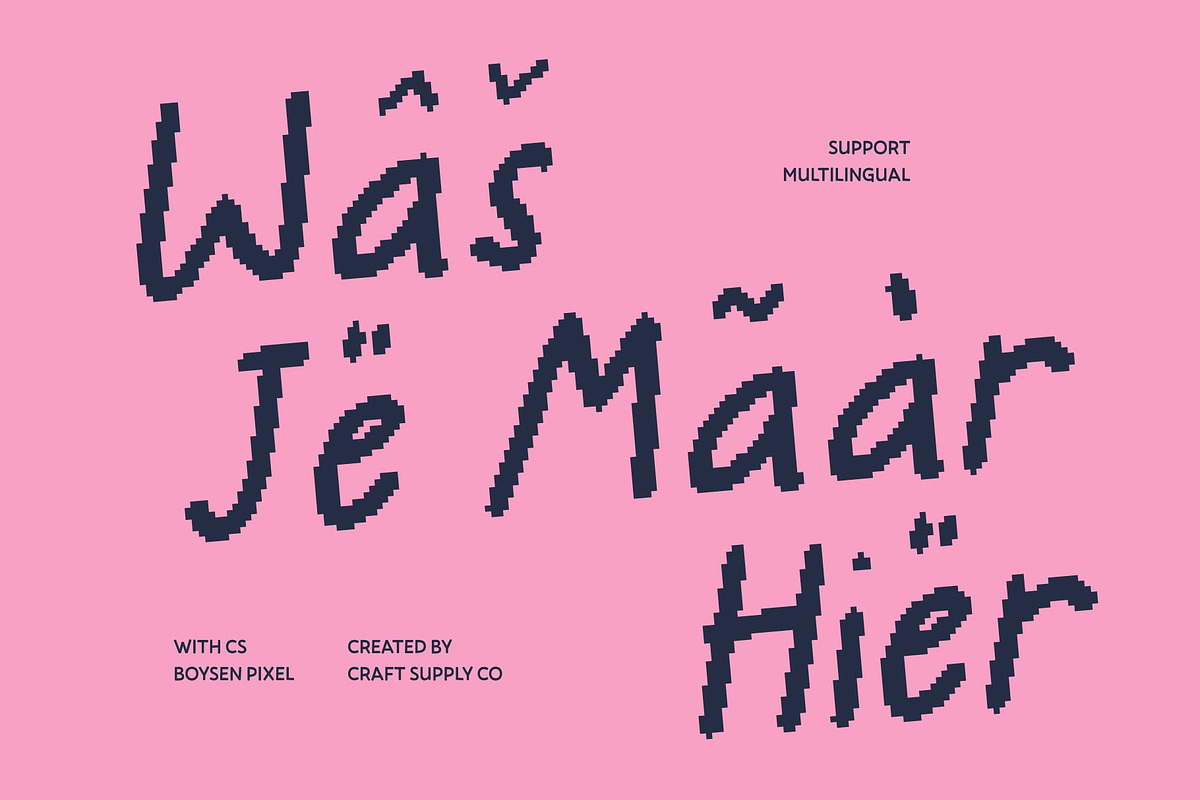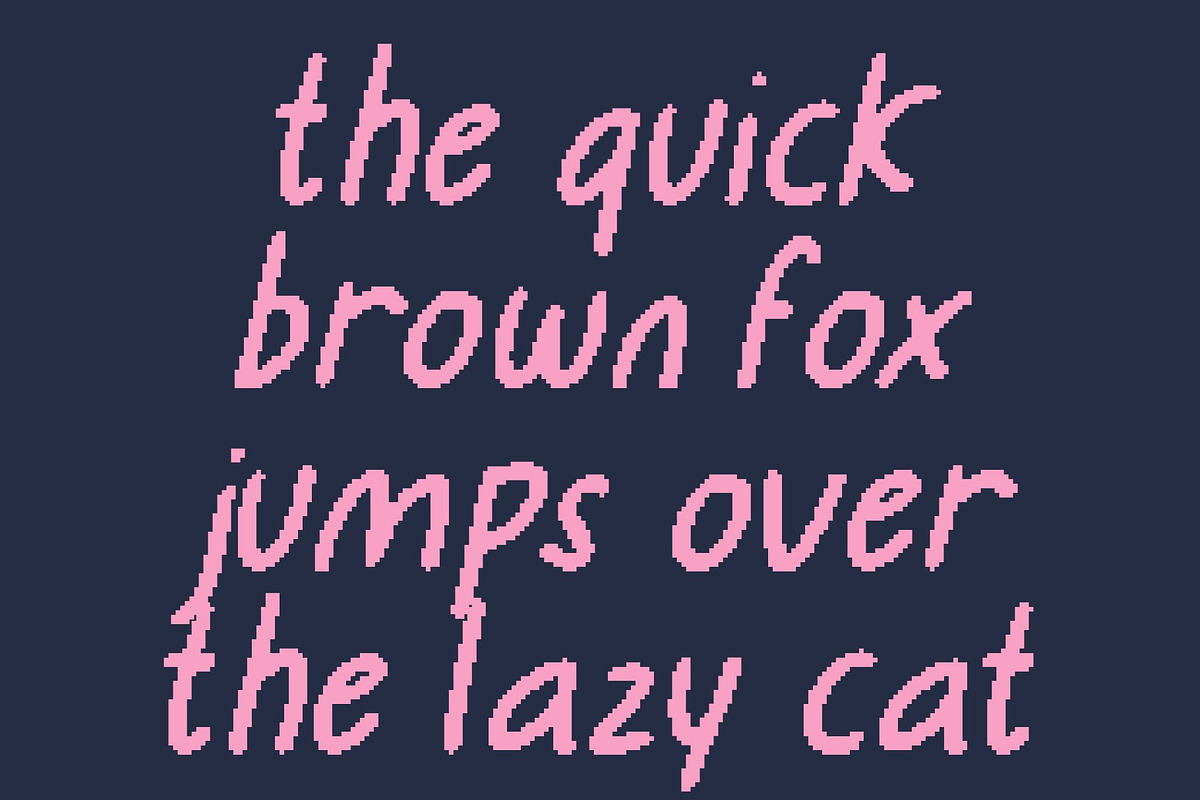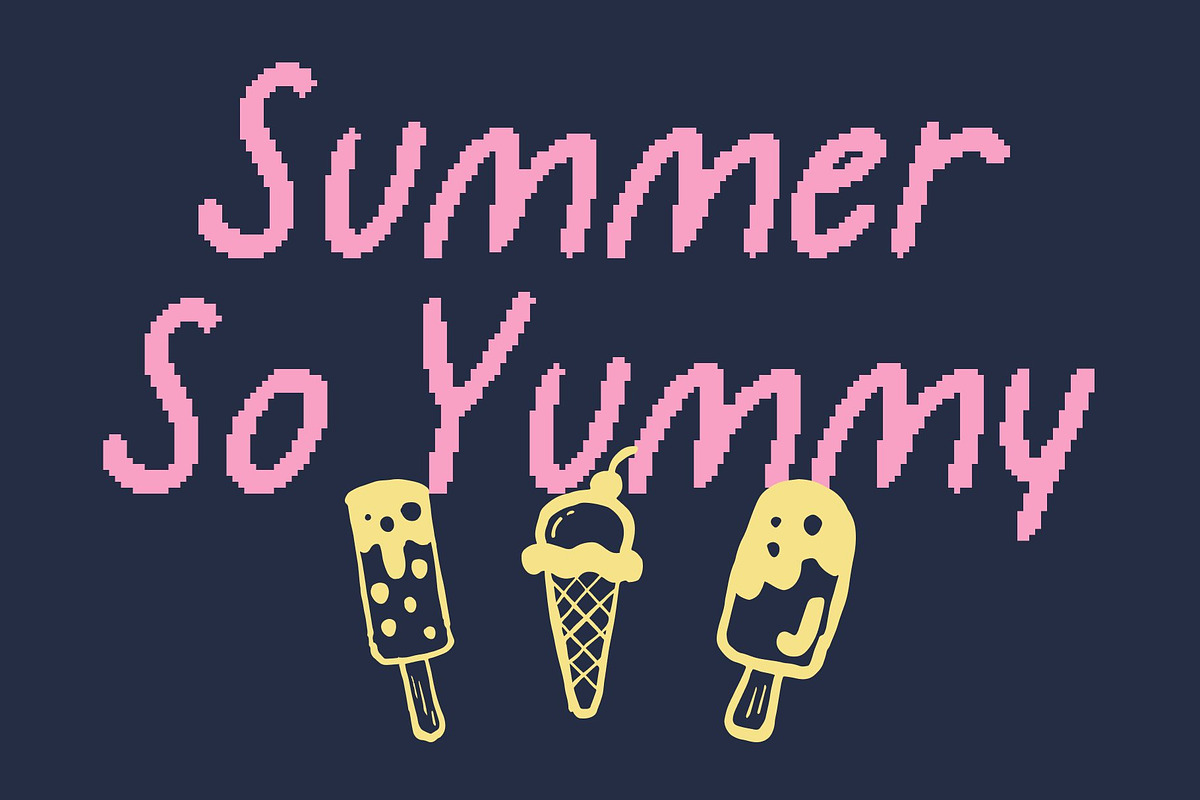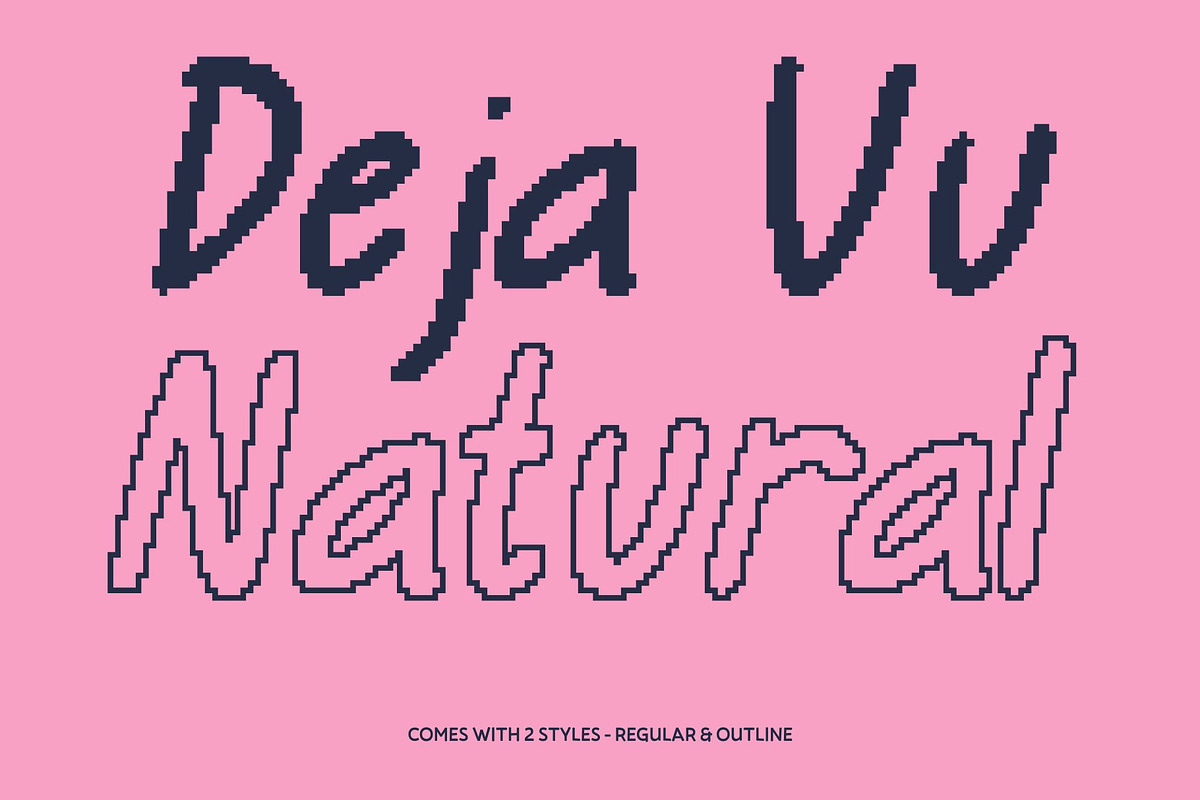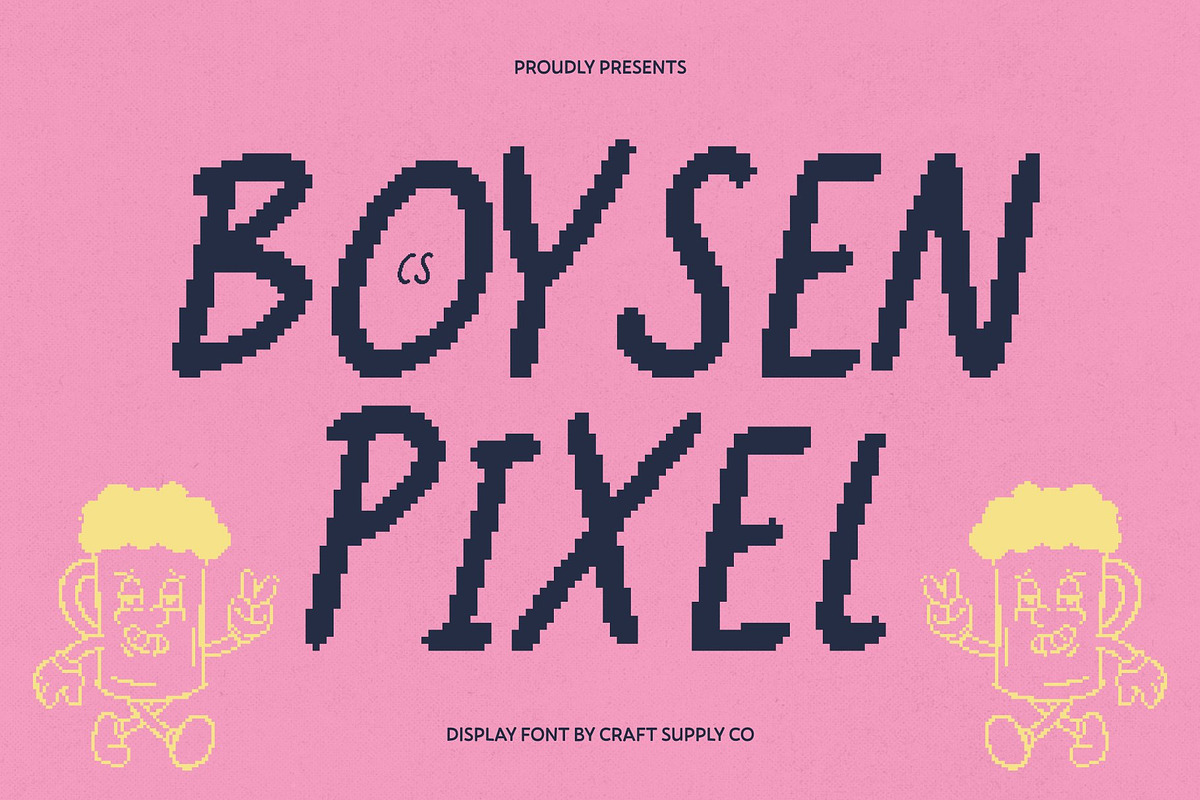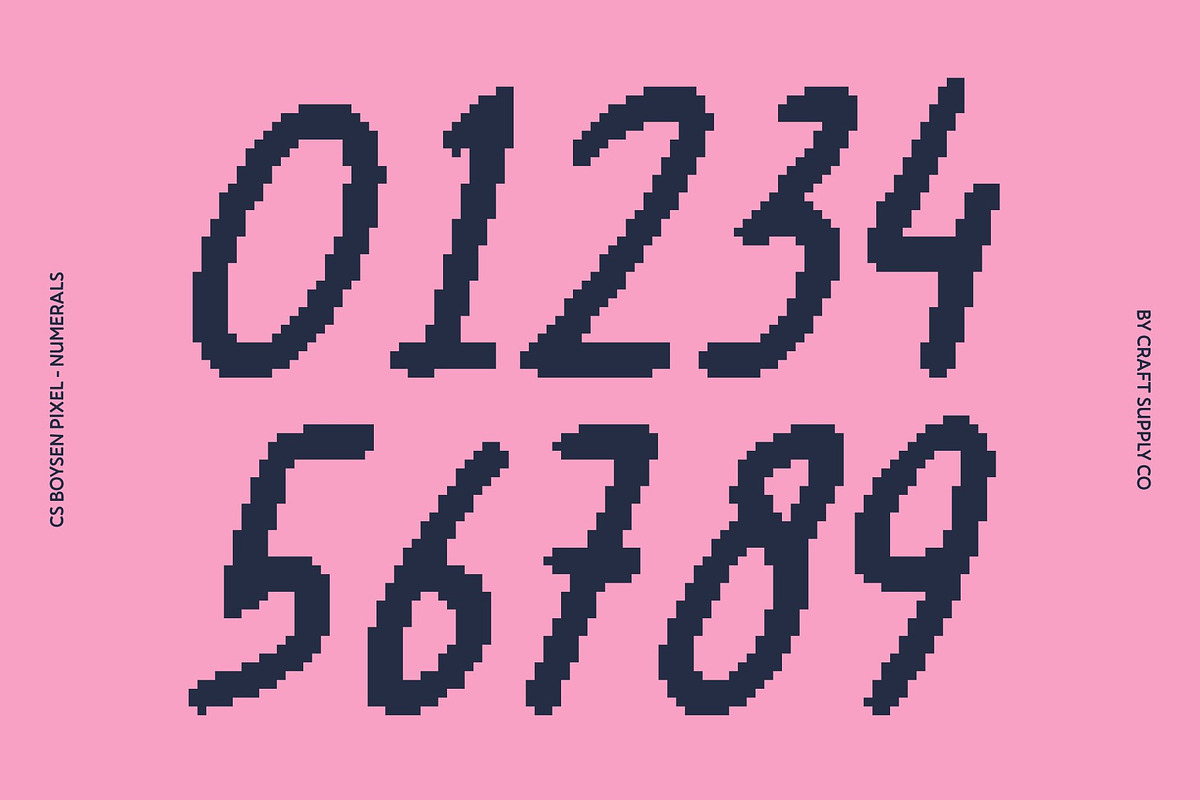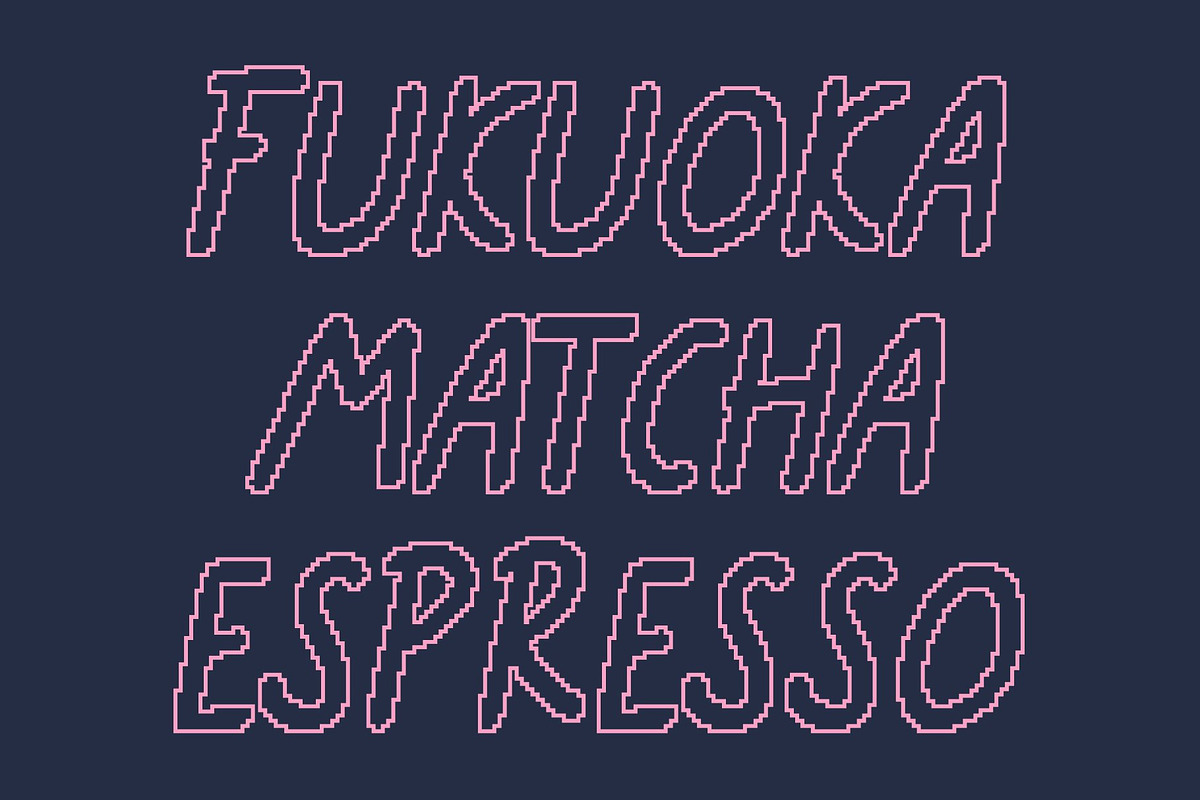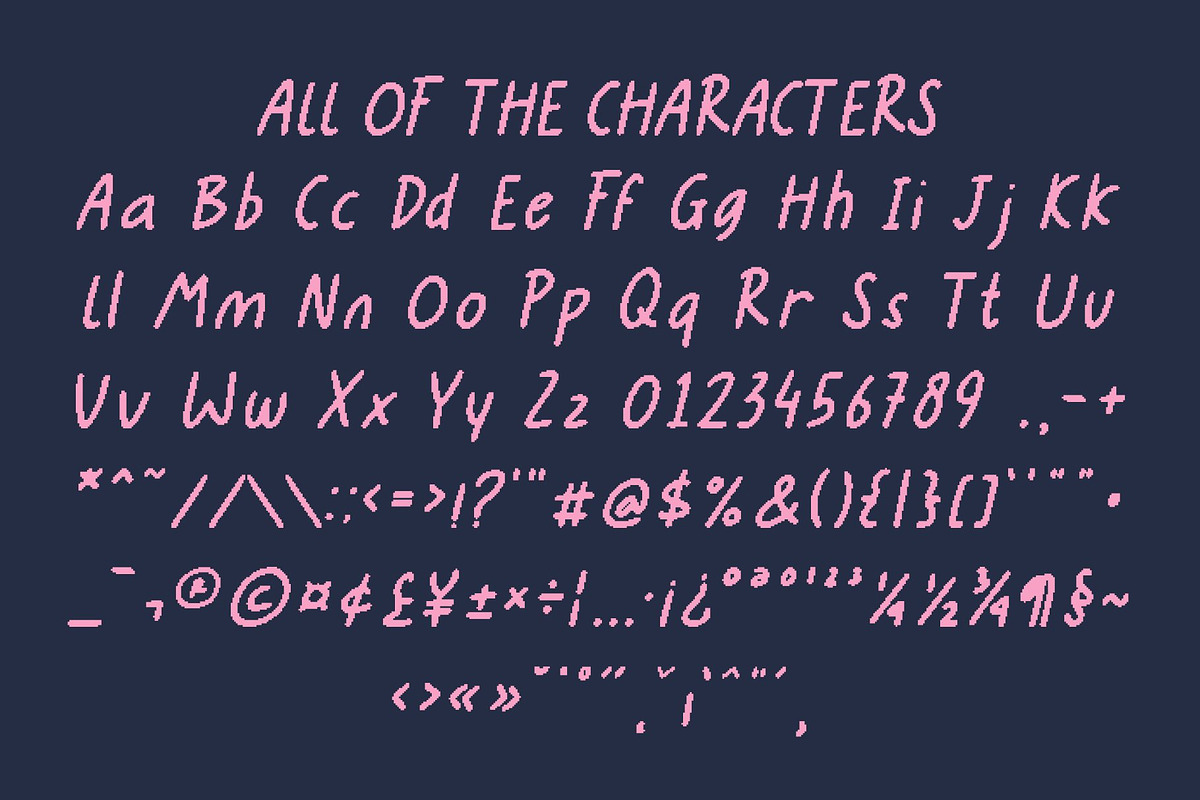
CS Boysen Pixel
CS Boysen Pixel – Joyful Handwriting Full of Character
Handwritten Pixel Font with Rounded, Playful Strokes This is a friendly handwritten font transformed into a charming pixel style, bursting with joy and creativity. Its rounded sans serif strokes are recreated using pixel blocks, giving the font a fun digital look while maintaining the warmth of natural handwriting. The result feels spontaneous yet balanced, combining cheerful personality with a nostalgic, screen-based aesthetic.
Rounded Pixel Shapes for a Soft and Welcoming Feel The smooth, rounded pixel edges create a comforting and cheerful impression that feels friendly and approachable. Each letter flows with a playful rhythm, reflecting openness and positivity. This soft pixel construction makes the font especially appealing for children-focused designs or visuals that aim to feel lighthearted and inviting.
Playful Pixel Forms for Creative Expression This font stands out through its quirky pixel letterforms that add movement and visual rhythm to text. The playful structure enhances imagination and fun, making it ideal for kids’ books, educational content, retro-inspired games, and creative posters that celebrate happiness and creativity.
Perfect for Fun, Whimsical, and Retro-Digital Designs From children’s projects and joyful branding to cheerful event graphics and digital visuals, this font adapts effortlessly across creative uses. Its pixel handwriting style blends warmth with old-school digital charm, making every word feel friendly, genuine, and delightfully fun perfect for modern designs with a retro-tech twist.
- CS Boysen Pixel Regular
- CS Boysen Pixel Outline